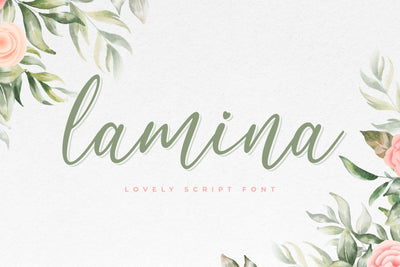
Lamina Script Font
Lamina is lovely script font that perfect for any design purpose like branding, logo, invitation, wedding card, poster and many more.